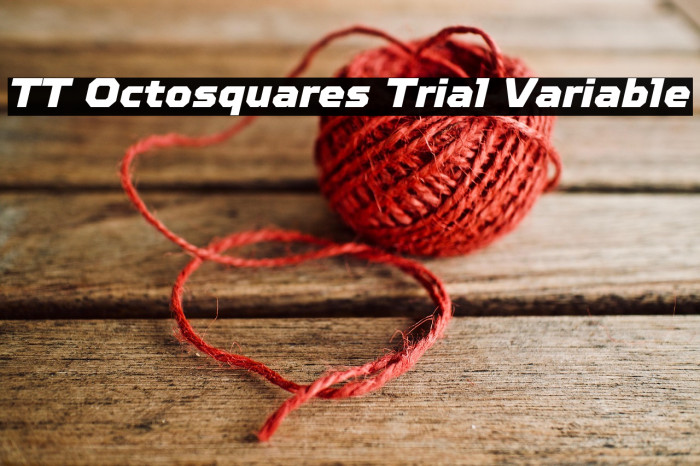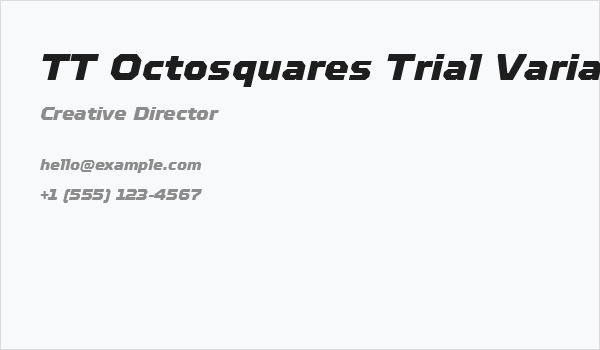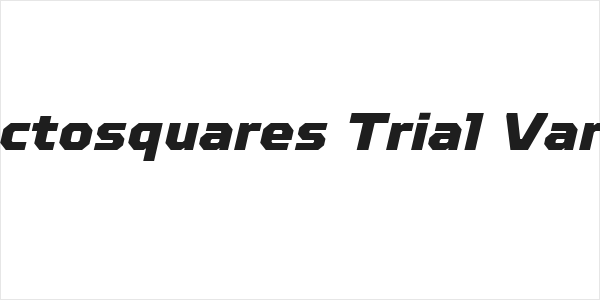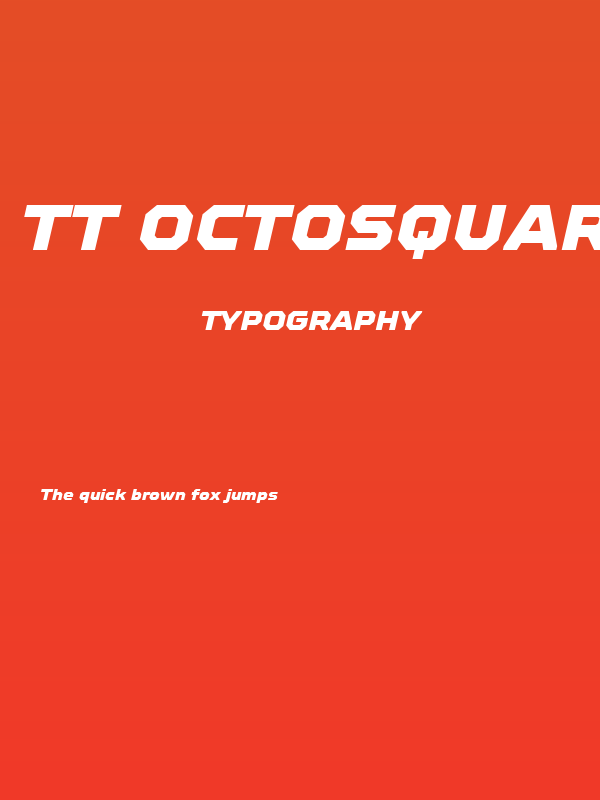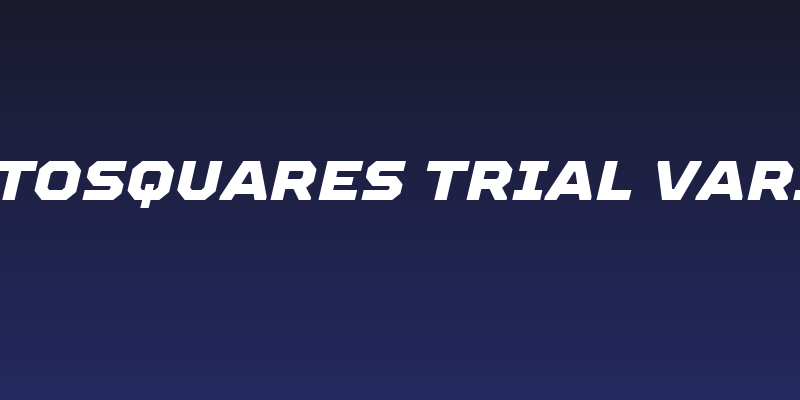
TT Octosquares Trial Variable Font
TT Octosquares Trial Variable Description
This font features a bold and angular design, characterized by its geometric and blocky letterforms. The uppercase and lowercase letters maintain a consistent style, with sharp edges and a strong presence. The numbers and special characters follow the same design principles, ensuring uniformity across all glyphs. The font's distinct and modern appearance makes it suitable for projects that require a bold statement. Its unique style is both eye-catching and memorable, making it ideal for branding and advertising purposes.
| Proposed Projects | Ideal for branding, advertising, posters, and headlines that require a strong visual impact. |